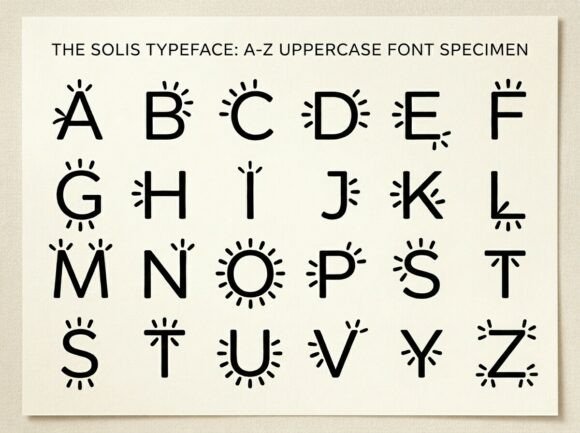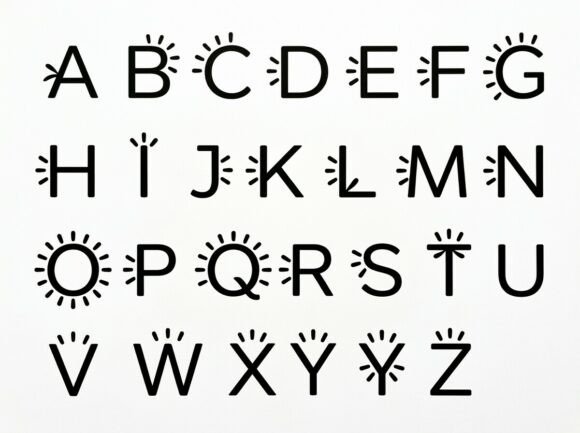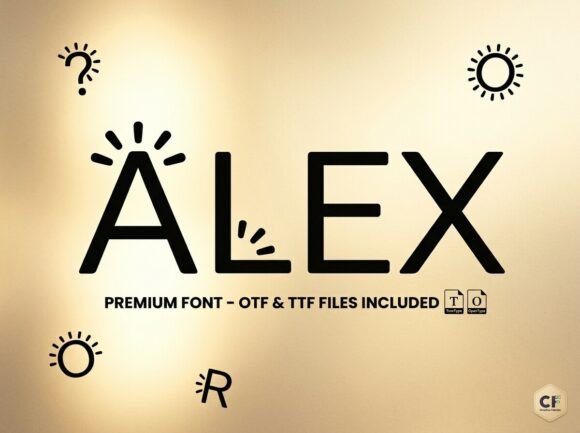
Introducing Alex Font: A Stunning Decorative Display Font
Are you tired of using the same old fonts for your designs? Look no further than Alex Font, a breathtaking decorative display font that’s sure to turn heads. With its unique artistic elements and strong visual personality, this font is perfect for creators who want to break away from the ordinary and make a statement.
What Makes Alex Font Special?
Alex Font is a versatile decorative font that’s designed to be the center of attention. Its stunning artistic elements and strong visual personality make it perfect for a variety of design projects, from bold headlines and artistic logos to creative packaging. Whether you’re a graphic designer, a crafty DIY enthusiast, or a marketing professional, this font is sure to elevate your designs to the next level.
Key Features of Alex Font
- Unique Artistic Elements: Alex Font features unique artistic elements that set it apart from other fonts. Each letter is carefully crafted to make a statement, making it perfect for high-impact headlines, logos, and decorative initials.
- Strong Visual Personality: This font has a strong visual personality that’s sure to grab attention. Its bold and eye-catching design makes it perfect for designs that need to stand out.
- Versatile: Alex Font is versatile enough for a variety of design projects, from bold headlines and artistic logos to creative packaging.
- Professional and Polished Finish: Despite its bold and artistic design, Alex Font maintains a professional and polished finish that’s perfect for designs that require a high level of sophistication.
⚠️ IMPORTANT NOTE BEFORE PURCHASE: Alex Font is an ALL-CAPS (Uppercase Only) display typeface. It does not include lowercase letters. It is specifically designed for high-impact headlines, logos, and decorative initials where every letter is a work of art.
Who is Alex Font for?
Alex Font is perfect for:
- Graphic Designers: If you’re a graphic designer looking for a unique and eye-catching font to add to your collection, Alex Font is a great choice.
- Crafty DIY Enthusiasts: If you’re a crafty DIY enthusiast who loves to create handmade cards, gift tags, and other paper crafts, Alex Font is a great addition to your font library.
- Marketing Professionals: If you’re a marketing professional looking for a bold and attention-grabbing font to use in your marketing materials, Alex Font is a great option.
Tips for Using Alex Font
Here are a few tips for using Alex Font:
- Use it for Headlines: Alex Font is perfect for bold headlines and titles. Use it to grab attention and make a statement.
- Pair it with a Simple Font: To create visual interest, pair Alex Font with a simple font for body text.
- Experiment with Colors: Alex Font looks great in a variety of colors. Experiment with different colors to find the one that works best for your design.
Alex Font is a stunning decorative display font that’s perfect for creators who want to break away from the ordinary. With its unique artistic elements and strong visual personality, this font is sure to elevate your designs to the next level. Whether you’re a graphic designer, a crafty DIY enthusiast, or a marketing professional, Alex Font is a great addition to your font library.